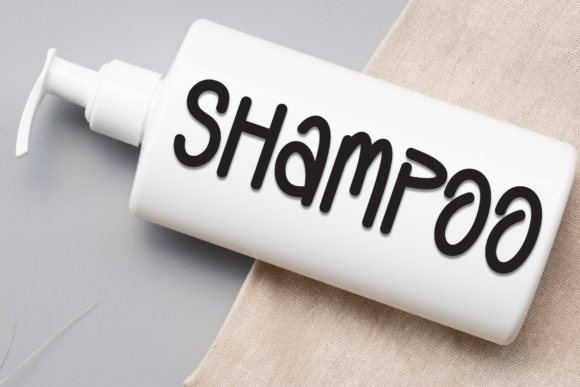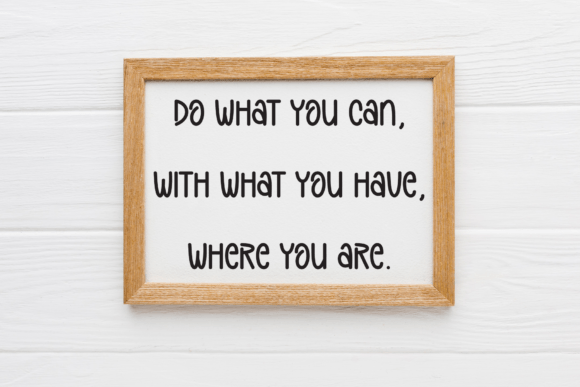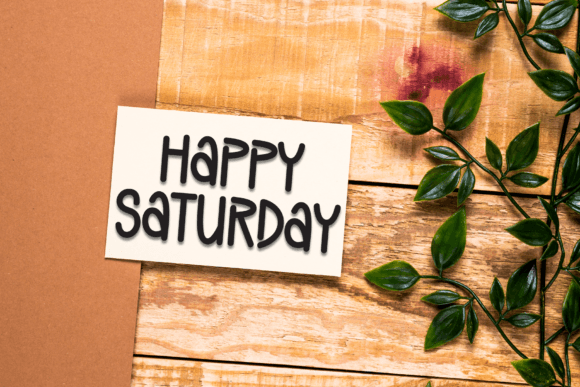
Introduction to Quick Christmas Font
Introducing a delightfully warm and charming handwritten display font.
With its playful yet elegant demeanor, this font lends itself perfectly to creating heartfelt wedding invitations, artistic greeting cards, or any design project craving a sprinkle of fun Brighten your creative journey with this uniquely captivating font, designed to add a splash of joy to every occasion.